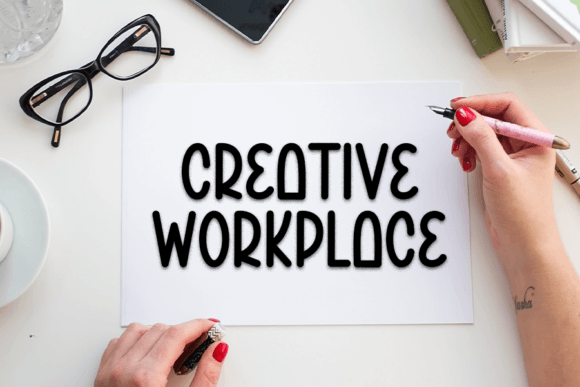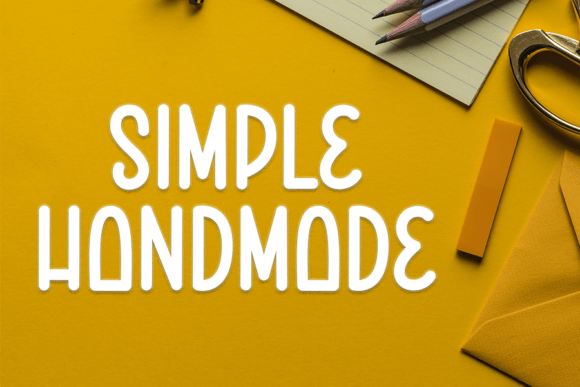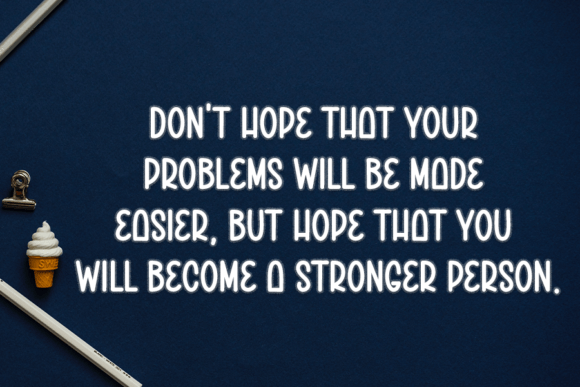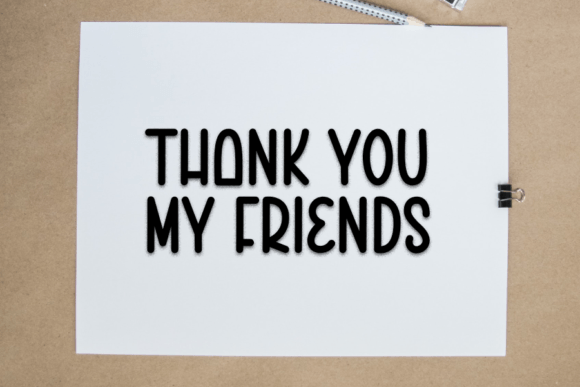
Introduction to Black Choco Font
As a designer, have you ever found yourself stuck in front of a blank canvas, desperately searching for the perfect font to bring your creative project to life? I’m sure you have. For me, it was a late-night design session when I stumbled upon the Black Choco Font. Its sleek, modern design and high-quality aesthetic immediately caught my attention, and I knew I had to share it with fellow designers.
The Black Choco Font is more than just a pretty face; it’s a valuable design resource that can elevate any creative project. Whether you’re working on a presentation, crafting greeting cards, or designing digital content, this font is sure to impress. And the best part? It’s available for a free download, making it an accessible addition to your design arsenal.
Key Features of Black Choco Font
- High-quality design for creative projects: Black Choco Font is designed to provide a unique and stylish look for your designs, making it an ideal choice for creative projects.
- Includes 30 unique characters: The font includes 30 unique characters, including letters, numbers, and symbols, making it a versatile design resource.
Honest Review: Black Choco Font
I recently stumbled upon the Black Choco Font while searching for a unique design resource for a creative project. I was excited to try it out and see how it would work for my needs.
The Black Choco Font is a free download, which is always a bonus in my book. It’s a high-quality font that is perfect for adding a touch of sophistication to your designs. The font has a sleek and modern aesthetic that works well for a variety of creative projects.
- The font may not be suitable for projects that require a more playful or whimsical feel
- Some users may find the font to be too modern or trendy, which may not appeal to everyone
Overall, I’m impressed with the Black Choco Font. It’s a great design resource that’s perfect for adding a touch of sophistication to your designs. While it may have some limitations, it’s a high-quality font that’s definitely worth checking out.
How to Use Black Choco Font
Tips for Getting the Most Out of Black Choco Font
To get the most out of Black Choco Font, experiment with different font sizes, styles, and combinations. This font is highly versatile and can be used in a variety of creative projects, from logos to brochures.
Black Choco Font is perfect for a variety of design projects, including:
- Logos
- Brochures
- Reports